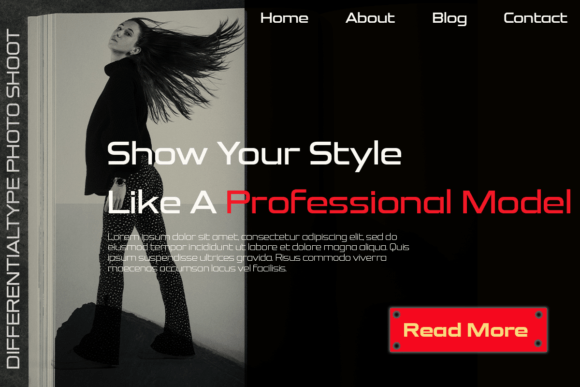
Introducing Ambatah Font: The Ultimate Sans Serif Font Family for Creative Projects
In the world of typography, a good font can make all the difference in the success of a creative project. A font that is not only visually appealing but also versatile and easy to use can elevate a design to new heights. This is where Ambatah Font comes in – a sans serif font family that is designed to be your go-to choice for all your creative endeavors.
Key Features of Ambatah Font
- 18 Styles to Choose From: Ambatah Font comes with a wide range of 18 styles, ensuring that you can find the perfect variation to suit your design needs.
- Specially Designed for Creative Projects: Ambatah Font is crafted with the creative professional in mind, making it an ideal choice for projects that require a modern and fresh look.
- Expanded Alternate Characters: The font features a set of expanded alternate characters, giving you more options to add some extra flair to your designs.
Why Choose Ambatah Font?
So, what makes Ambatah Font stand out from the rest? Here are just a few reasons why you should consider adding it to your font collection:
- Versatility: With 18 styles to choose from, Ambatah Font can be used for a wide range of projects, from branding and advertising to packaging and digital media.
- Legibility: The sans serif design of Ambatah Font ensures that it is highly legible, even at small sizes, making it perfect for body text and captions.
- Uniqueness: The expanded alternate characters and swashes in Ambatah Font give you the opportunity to add some extra personality to your designs, setting them apart from the crowd.
Use Cases for Ambatah Font
Ambatah Font is a versatile font family that can be used in a variety of creative projects. Here are some examples of how you can use it:
- Branding and Identity: Use Ambatah Font to create a modern and fresh brand identity that will help you stand out from the competition.
- Advertising and Marketing: The clean and legible design of Ambatah Font makes it perfect for use in advertising and marketing materials, such as brochures, flyers, and posters.
- Packaging: Ambatah Font is a great choice for packaging design, adding a touch of modernity and sophistication to your products.
- Digital Media: Use Ambatah Font in your digital media projects, such as website designs, social media graphics, and video productions.
Pairing Ambatah Font with Other Fonts
One of the best things about Ambatah Font is its versatility when it comes to pairing it with other fonts. Here are some tips for pairing Ambatah Font with other fonts:
- Serif Fonts: Pair Ambatah Font with a serif font, such as a classic font like Times New Roman or a modern font like Montserrat, to create a nice contrast between the two.
- Script Fonts: Combine Ambatah Font with a script font, such as a elegant font like Pacifico or a bold font like Rock Salt, to add some extra flair to your designs.
- Display Fonts: Pair Ambatah Font with a display font, such as a bold font like Arial Black or a decorative font like Creepster, to create a striking contrast.